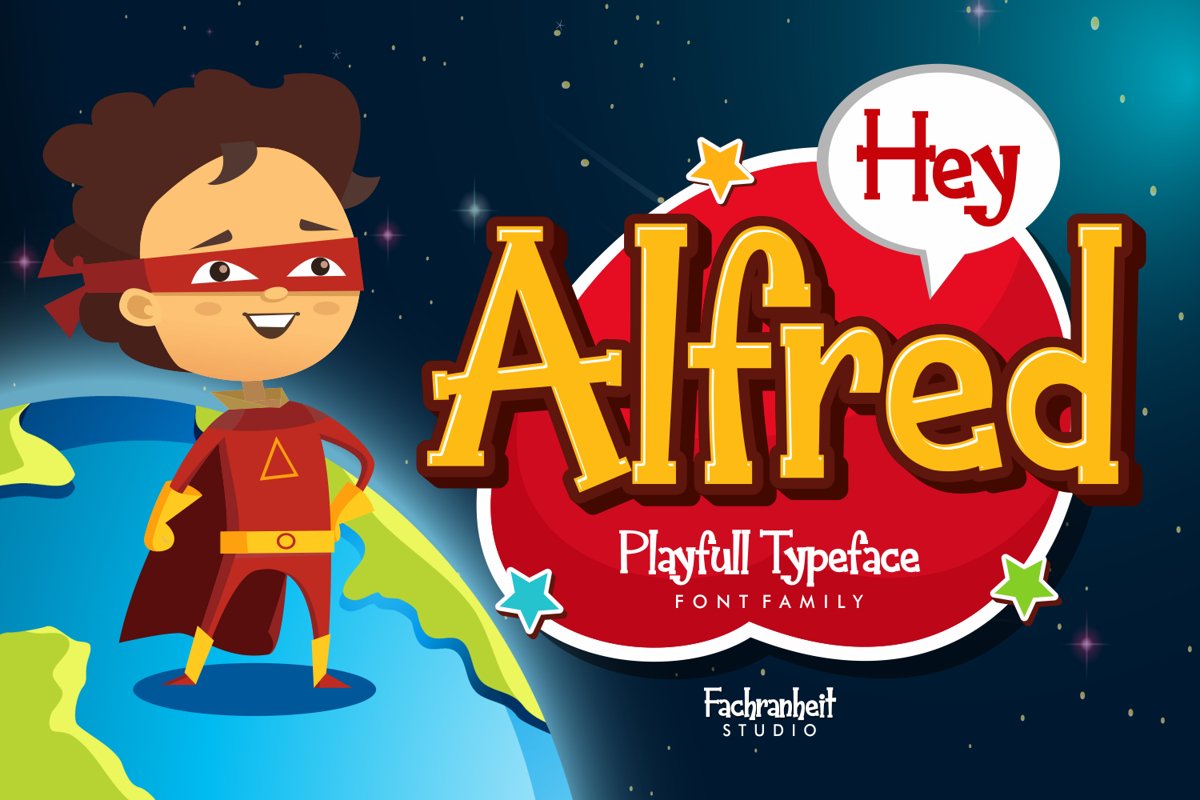
Hey Alfred
Hey Alfred is a Playfull font typeface
The unique characteristics of Hey Alfred make it very suitable for various purposes such as quotes, t-shirt designs, flyers, youtube channels, labels, logos etc.